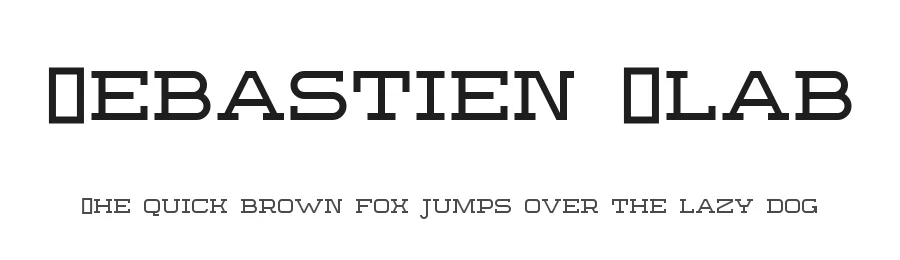
About Sebastien Slab Round Font
Sebastien Slab Round is a freeware mod of our classic slab serif 'Sebastien Slab'. Features a limited character set and rounded corners.
| Designer | Out Of Step Font Company |